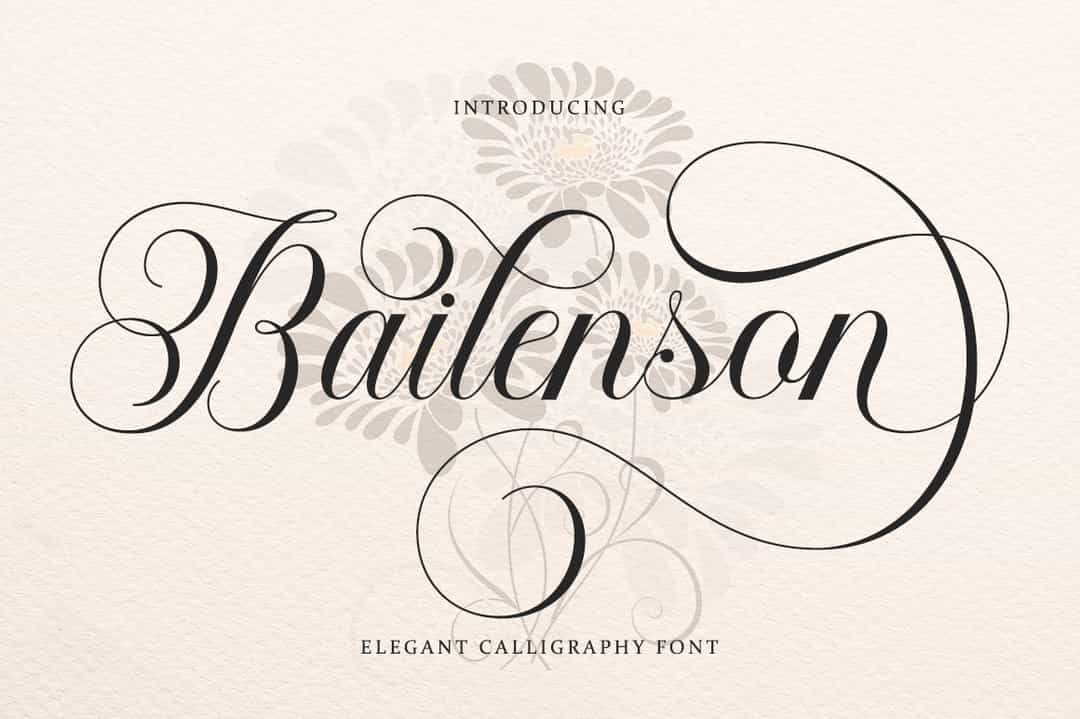
Bailenson can be described as an elegant typeface designed for calligraphy that has an everlasting style, drawing inspiration from Italian women’s handwriting as well as ancient manuscripts. Carefully created to work well together,